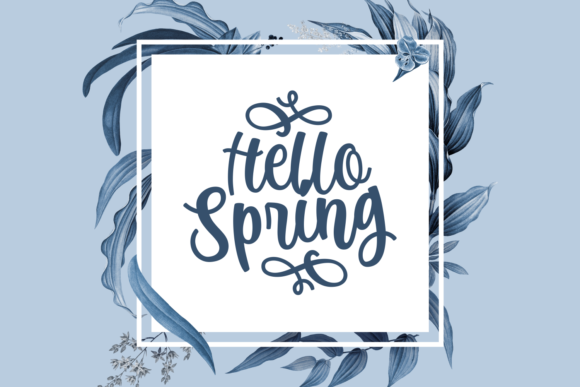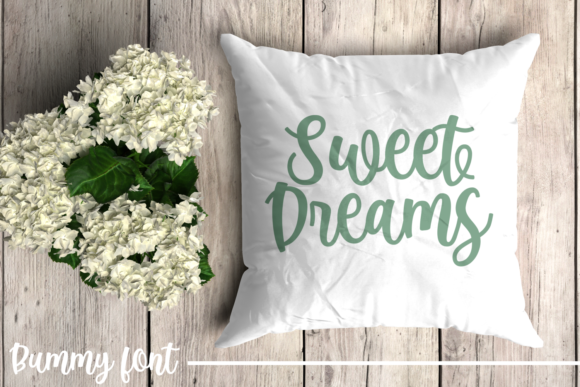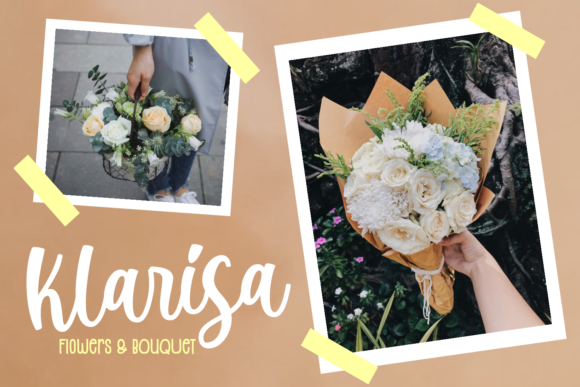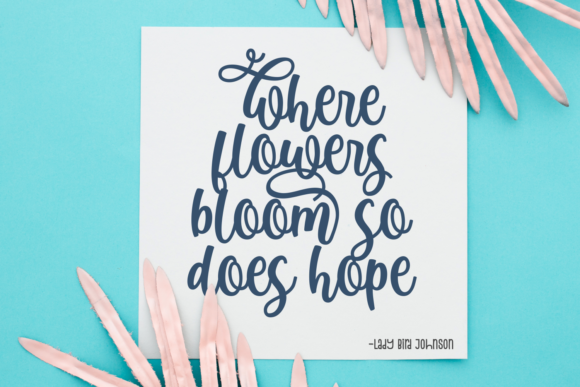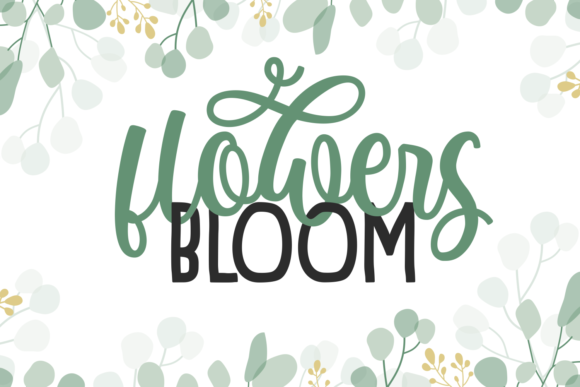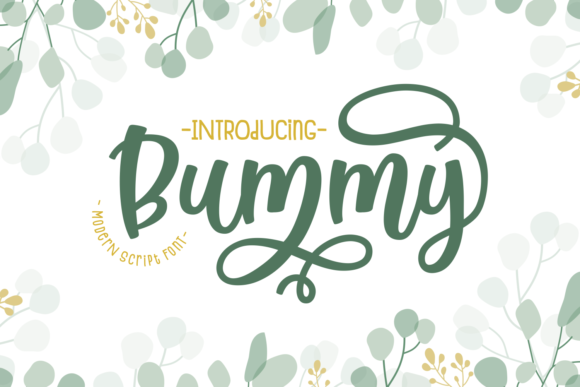
Bummy Font: The Sweet and Flexible Handwritten Font for Your Creative Projects
Are you a designer or crafter looking for a font that can add a touch of warmth and romance to your projects? Look no further than the Bummy font! This sweet, all-round, and flexible handwritten font is perfect for turning your project ideas into real works of art. In this article, we’ll take a closer look at the Bummy font, its features, and how you can use it to elevate your creative projects.
What is Bummy Font?
Bummy is a beautiful, handwritten font that exudes warmth, romance, and joy. Its flexible design makes it suitable for a wide range of projects, from wedding invitations and greeting cards to branding and packaging. The font’s sweet and playful feel is sure to capture the attention of your audience and leave a lasting impression.
Key Features of Bummy Font
- Handwritten Style: The font has a beautiful, handwritten style that adds a personal touch to your projects.
- Flexible Design: Bummy is an all-round font that can be used for a wide range of projects, from formal to informal.
- Warm and Romantic: The font’s warm and romantic feel makes it perfect for projects that require a touch of elegance and sophistication.